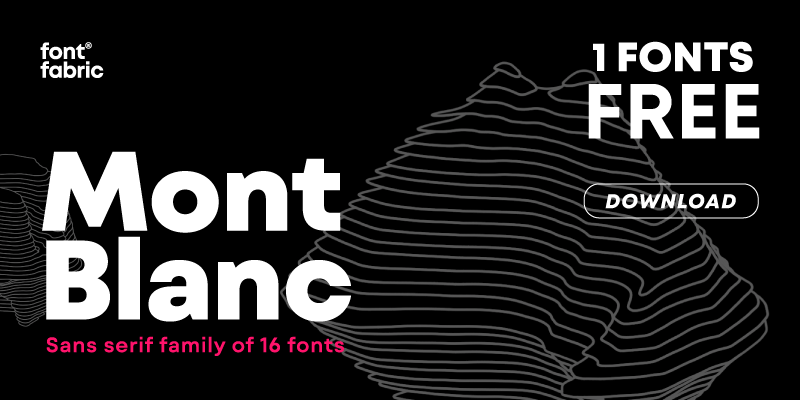
Font name: | Mont Blanc |
Author: | Fontfabric |
Note by Fontfabric | |
Mont Blanc elevates all prized unique details of the legendary Mont font and translates into an independent flawless text font family. This typeface prodigy comes with heaping legibility improvements dedicated to smaller sizes and challenging paragraphs. |